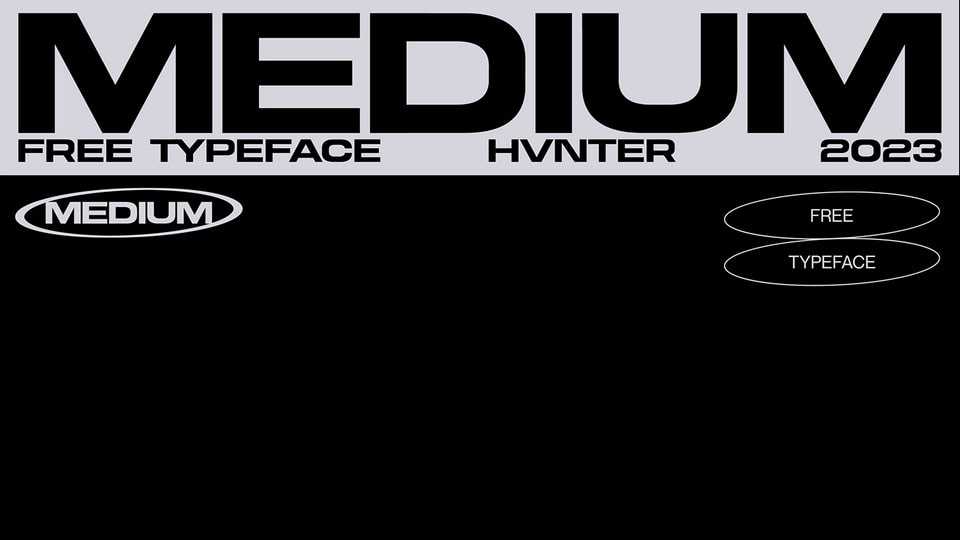
Download Medium font, a display typeface that commands attention with its bold, strong, and wide design. Medium font is custom-made for projects that demand a sense of authority and boldness.
Designer: Hvnter